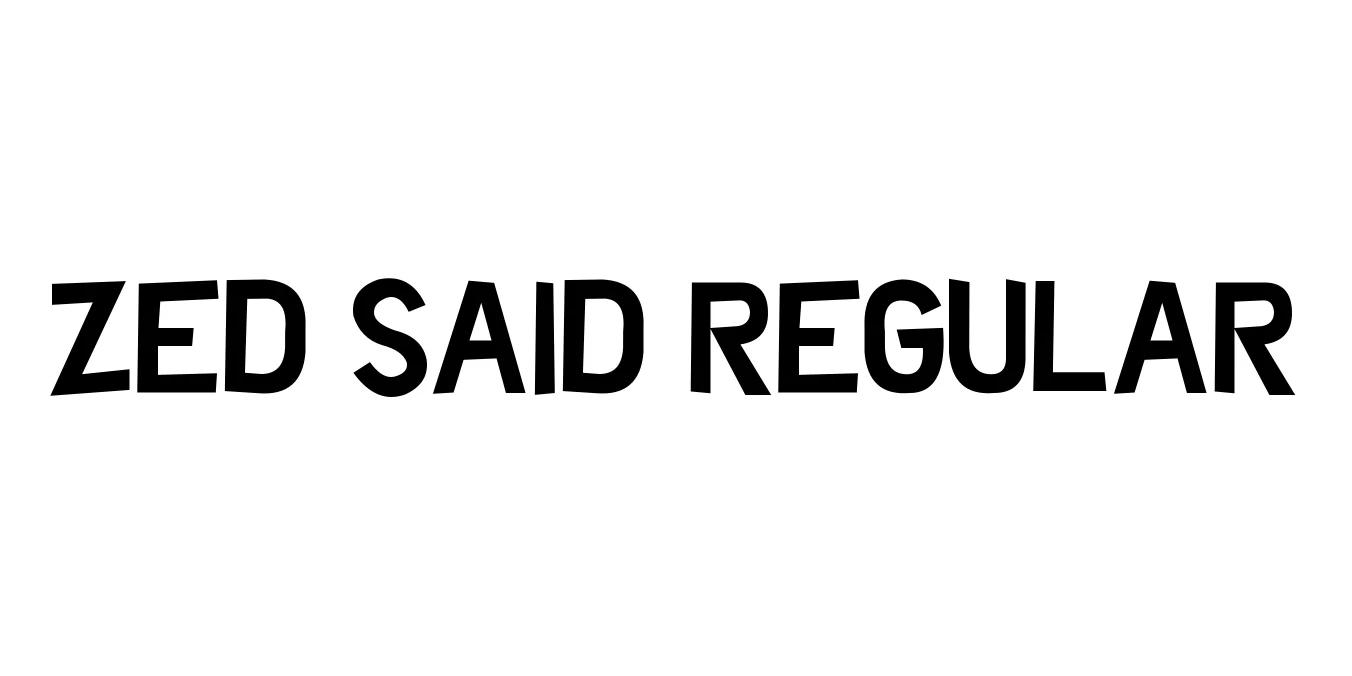
Zed Said Regular
Designed by Mohammad Khan
| Category | Handwritten / Script |
| Designer | Mohammad Khan |
Zed Said Regular is a charming and versatile handwritten typeface designed to emulate a casual, natural penmanship style. It features fluid, organic strokes that provide a sense of authenticity and personal connection, making it stand out from rigid, traditional fonts. The balance between its informal aesthetic and clear legibility makes it a favorite for designers aiming to create a friendly and approachable atmosphere in their visual communication.
The font's history is rooted in the digital lettering movement, where the demand for human-centric typography has surged. Zed Said Regular excels in display environments, particularly when used for projects that require a unique, handcrafted look without the complexity of traditional calligraphy. It is widely utilized across both digital and print platforms for its ability to add a layer of personality and warmth to modern creative layouts.
Zed Said Regular Best Uses
Perfect for creating engaging Instagram stories, quotes, and casual posts.
Excellent for small businesses or personal brands looking for an approachable identity.
Ideal for personalized greeting cards, wedding invitations, and scrapbooking.
Used in advertising to convey a friendly, non-corporate message.